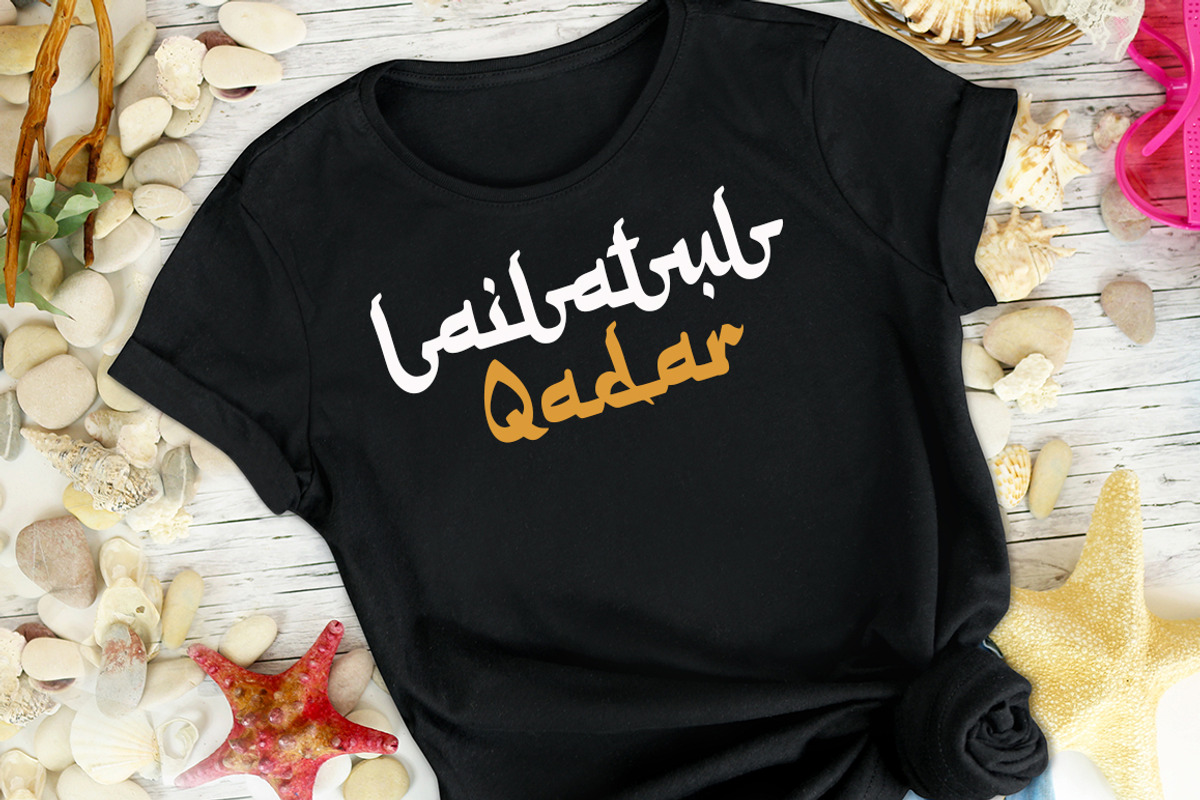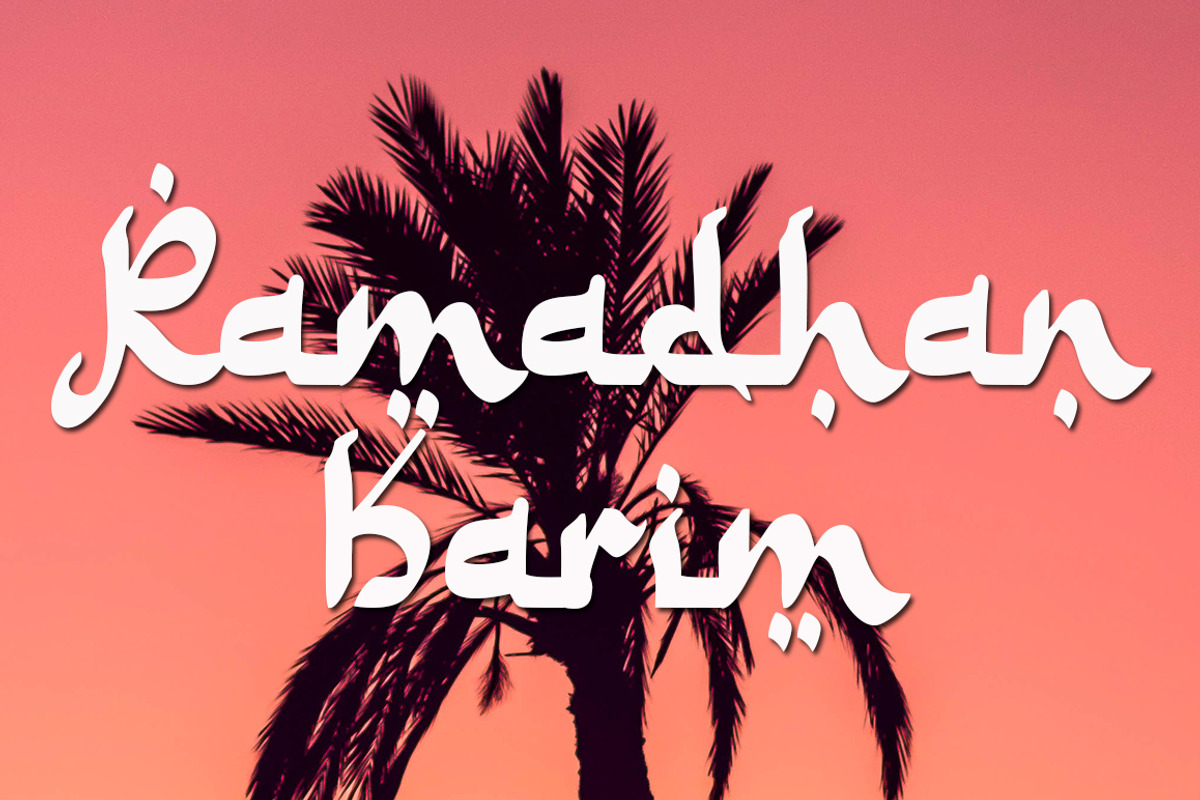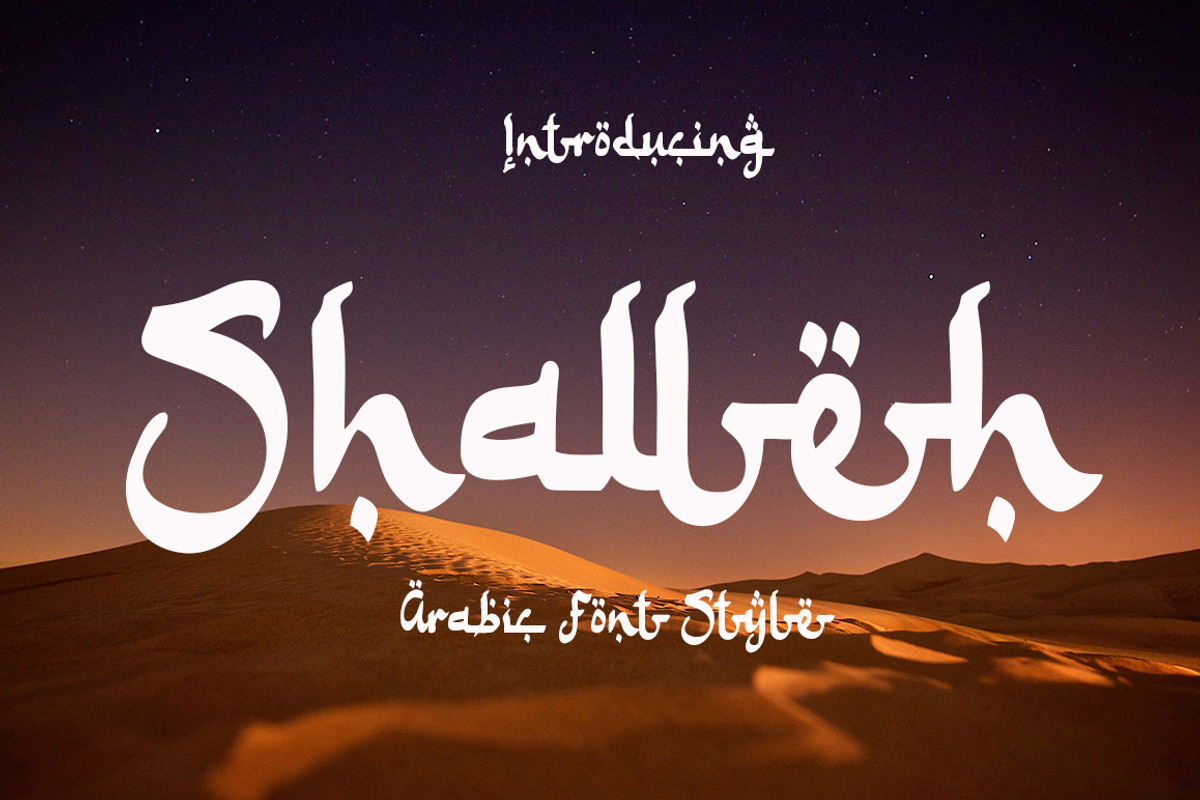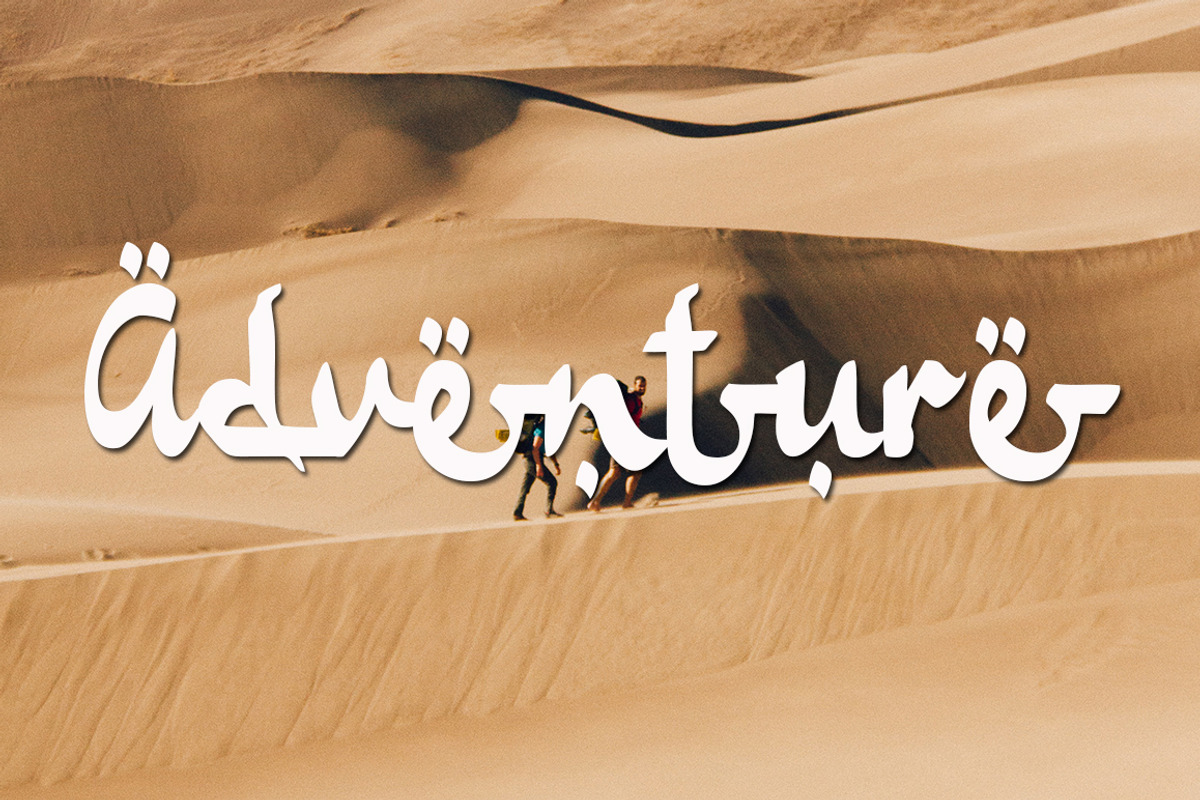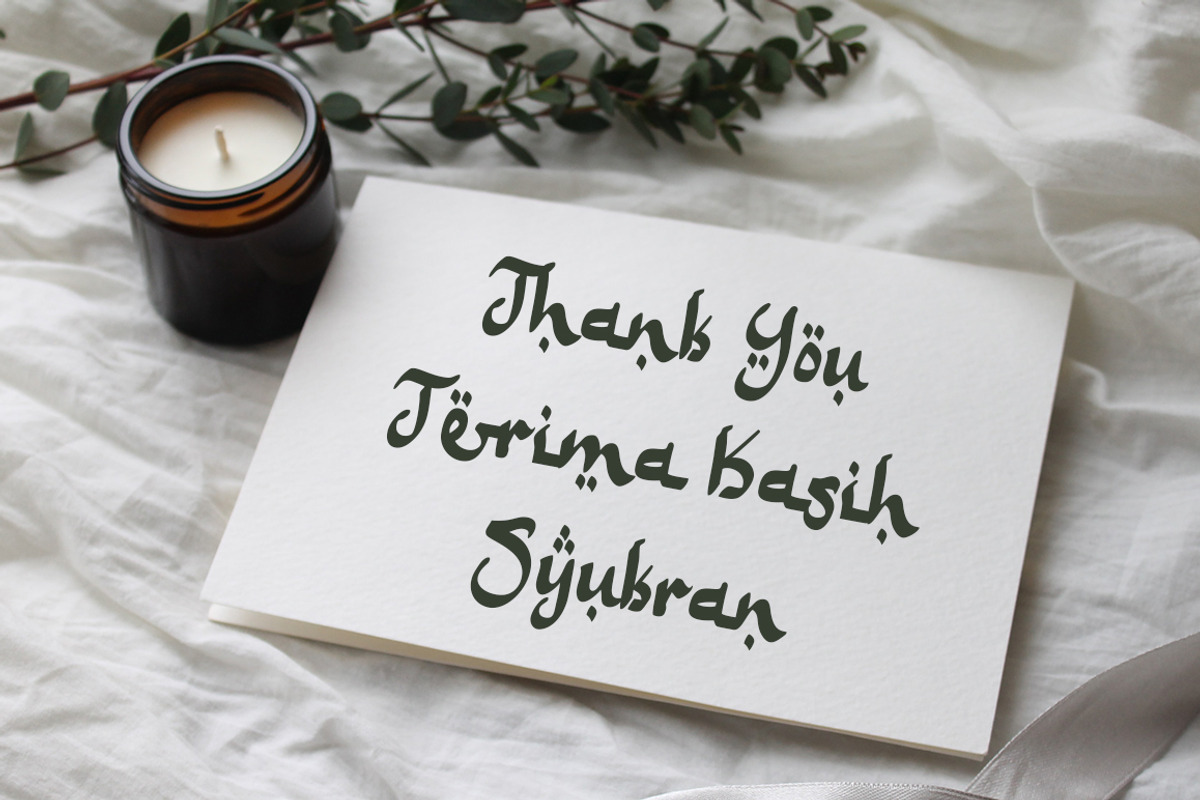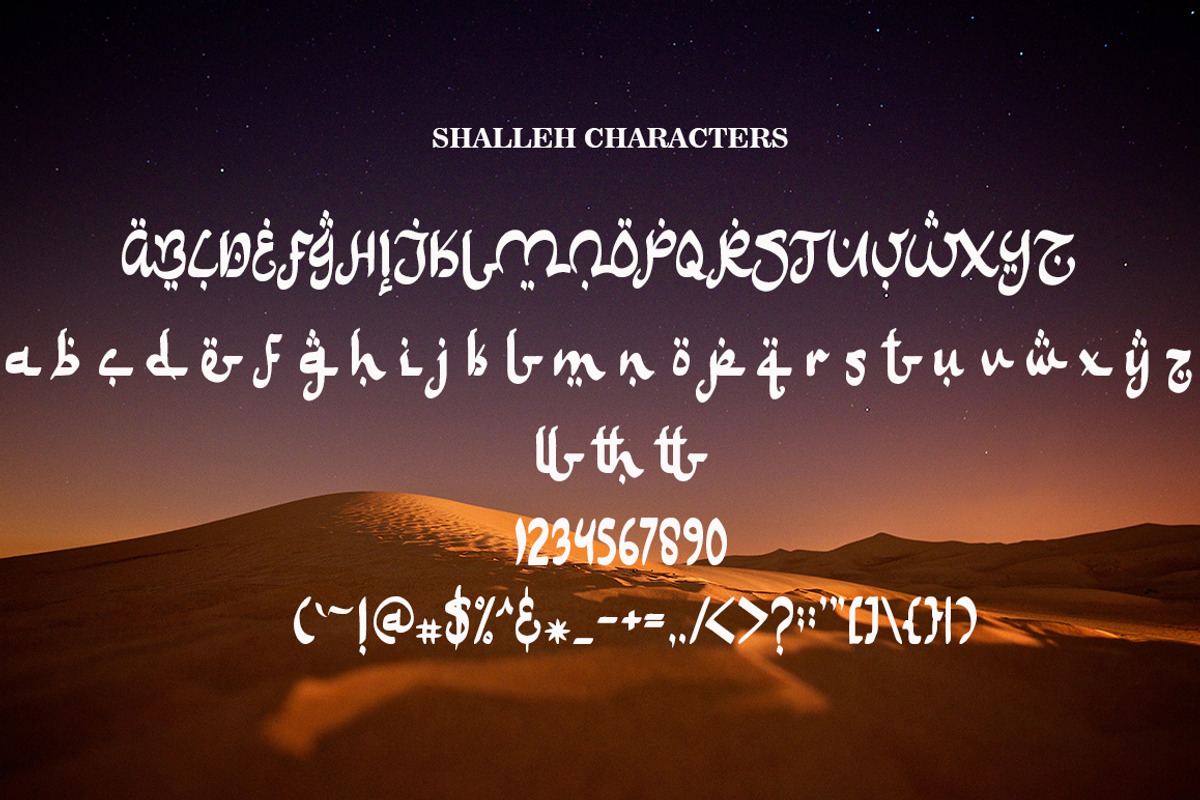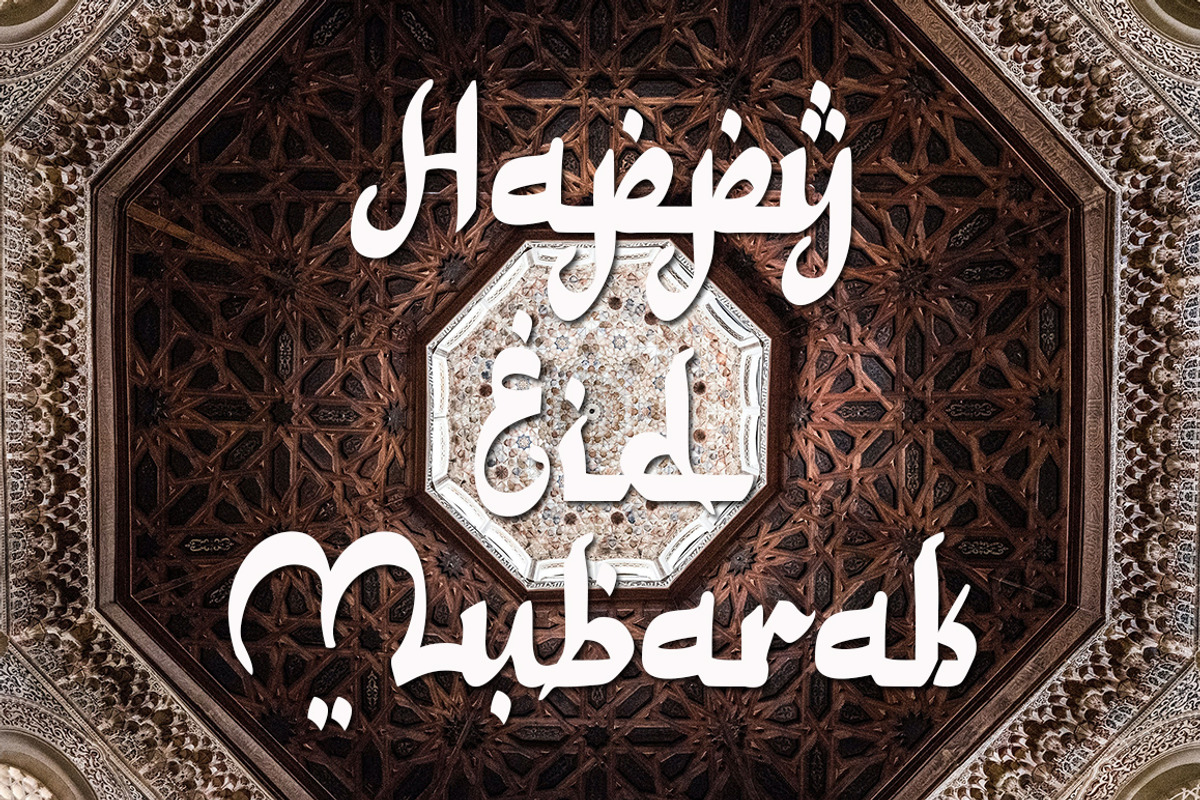
Shalleh - Arabic Style
Shalleh is a bold script font, featuring Arabic Style. Designed expertly to make your project or work more modern, this font can be used for various projects such as: greeting cards, branding, logos, screen printing, and many others.